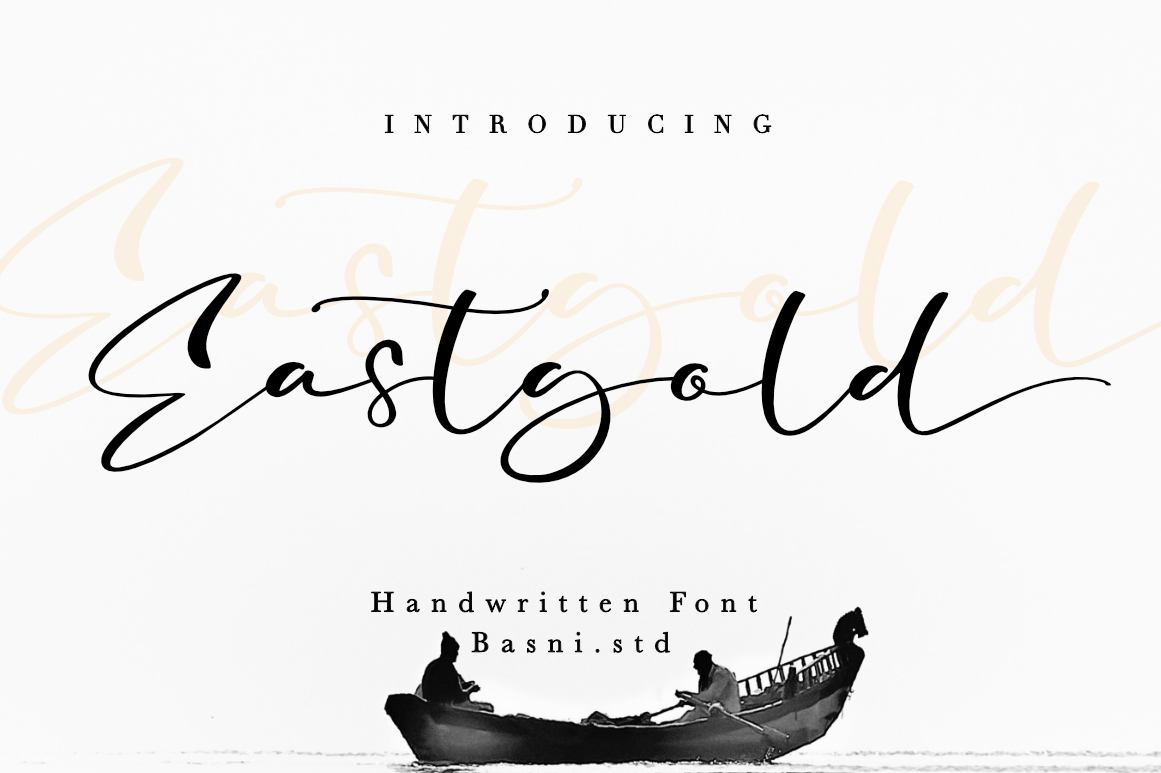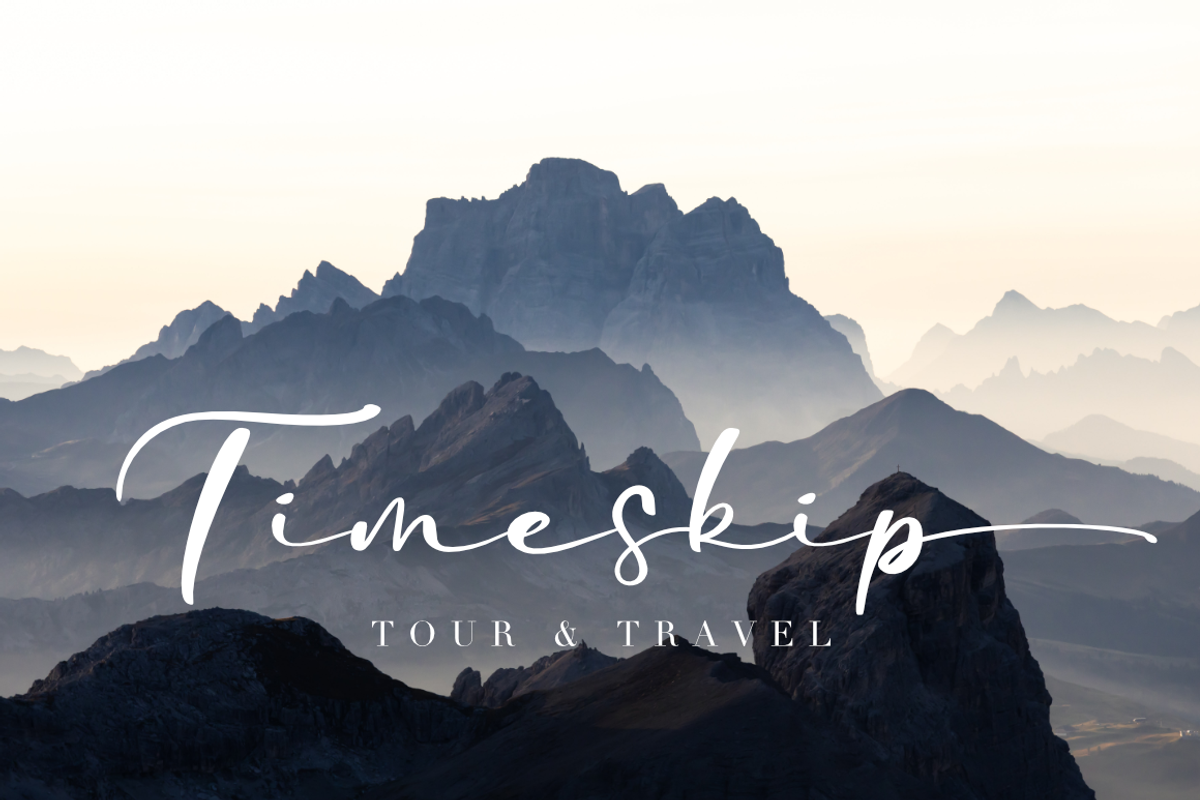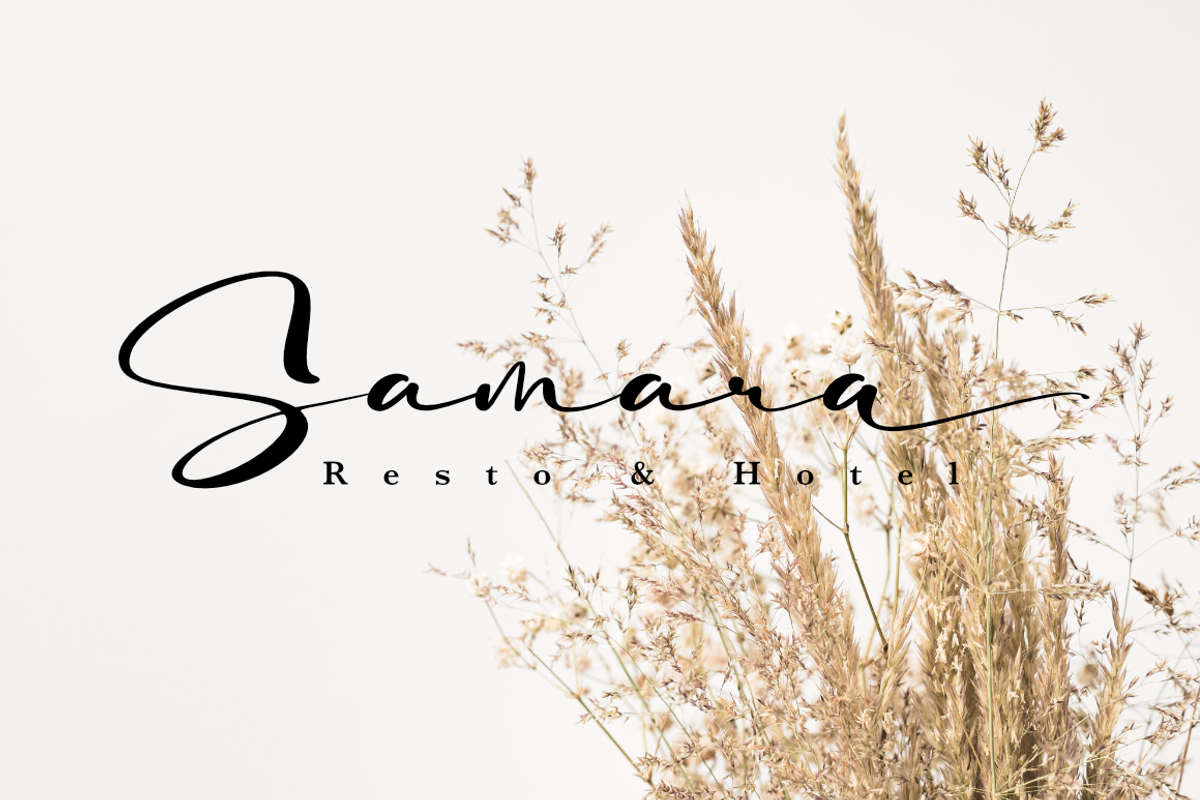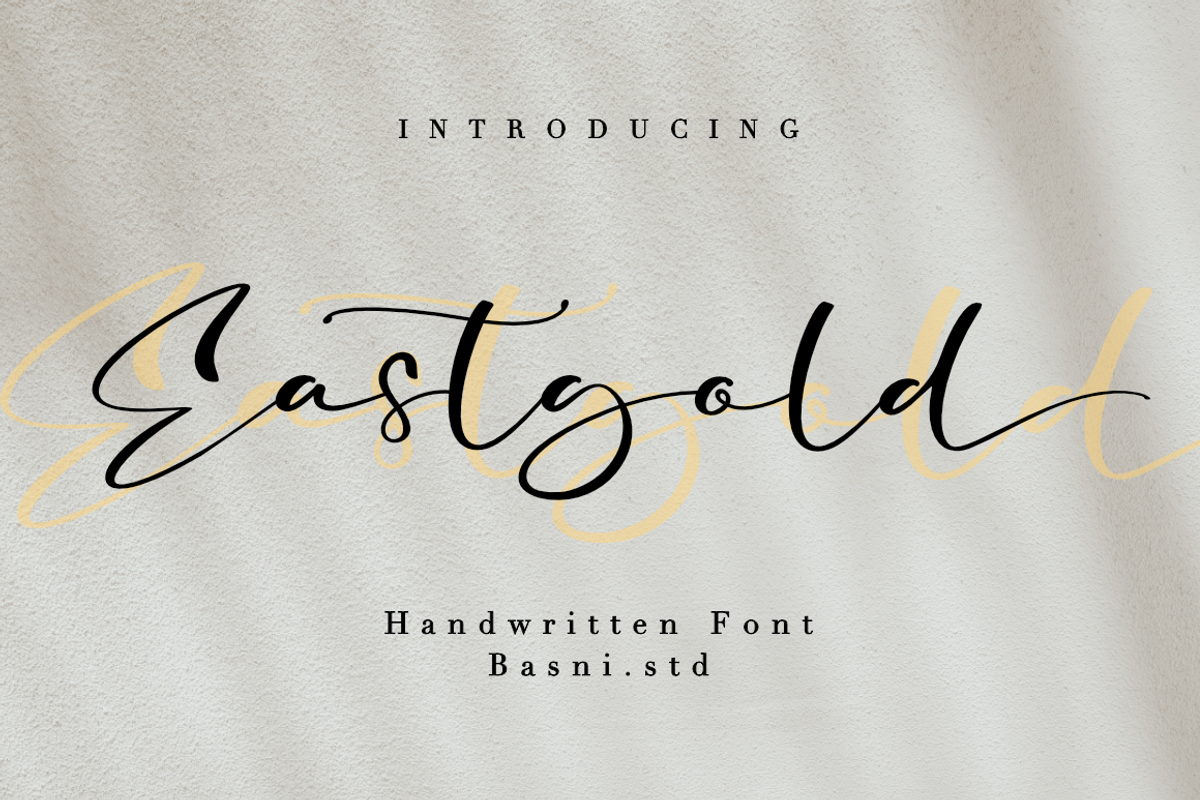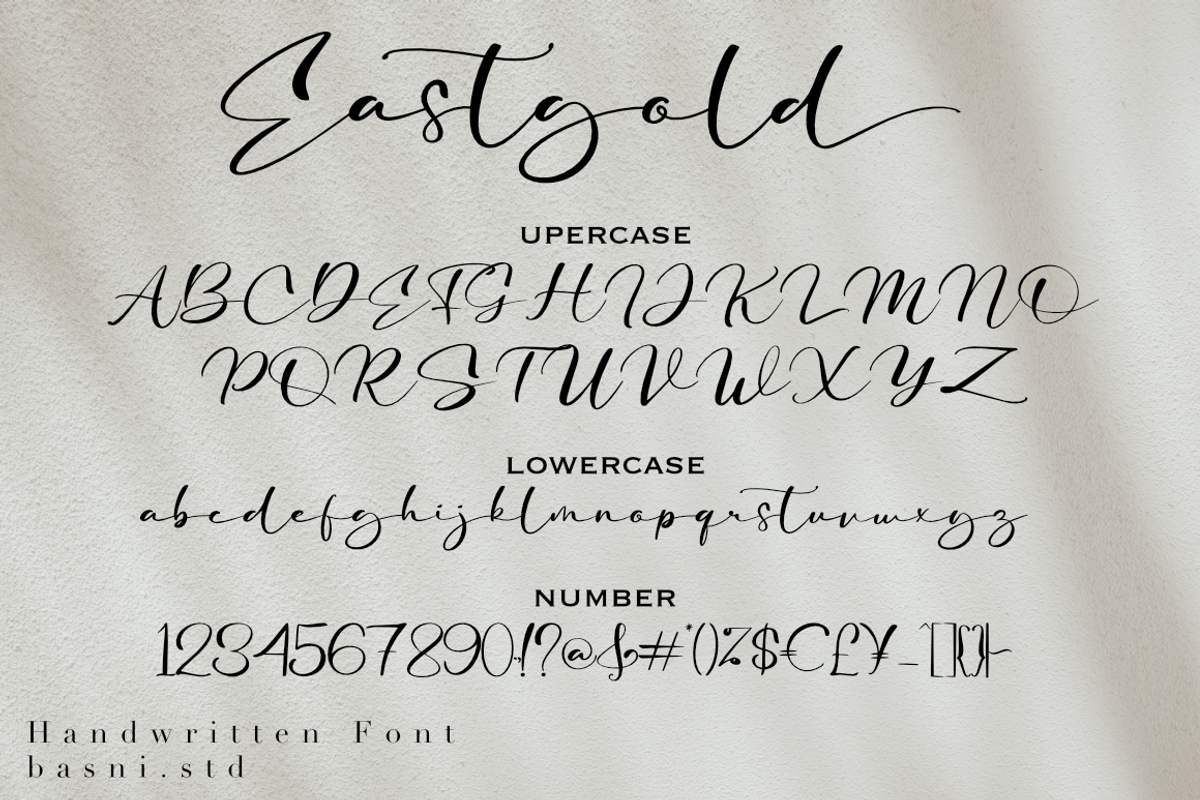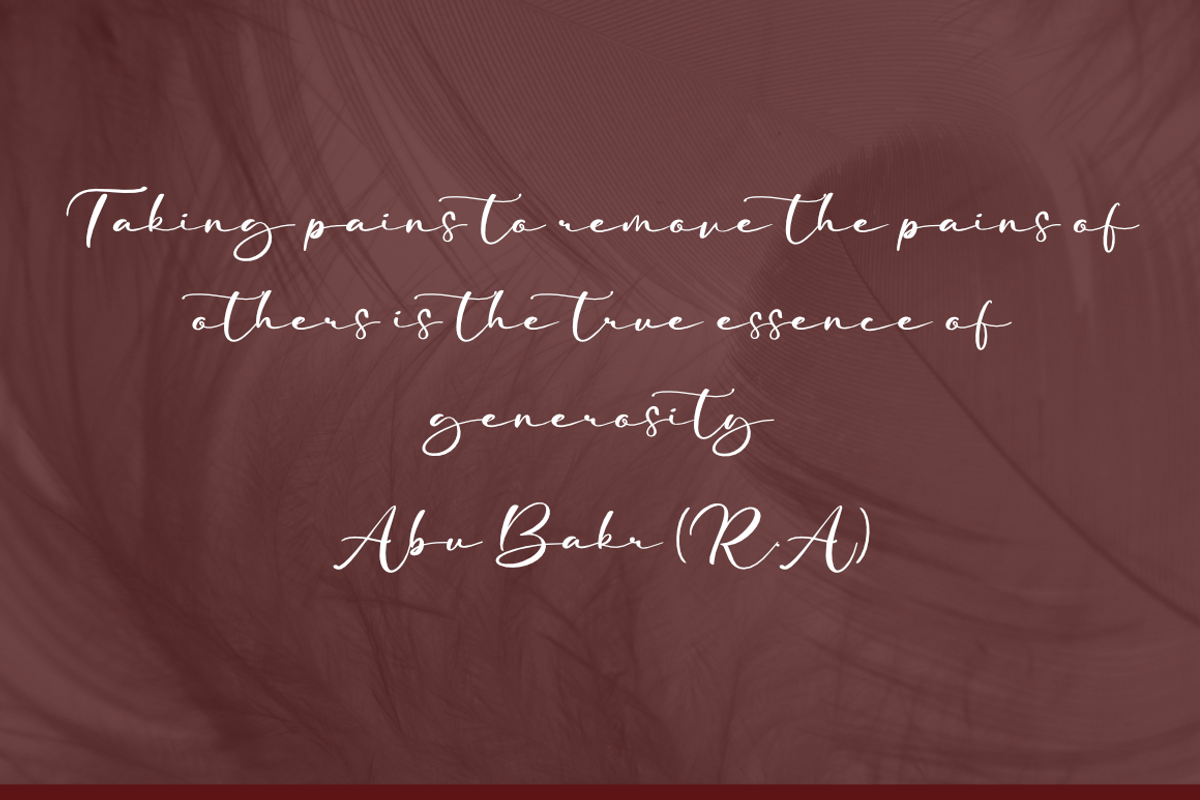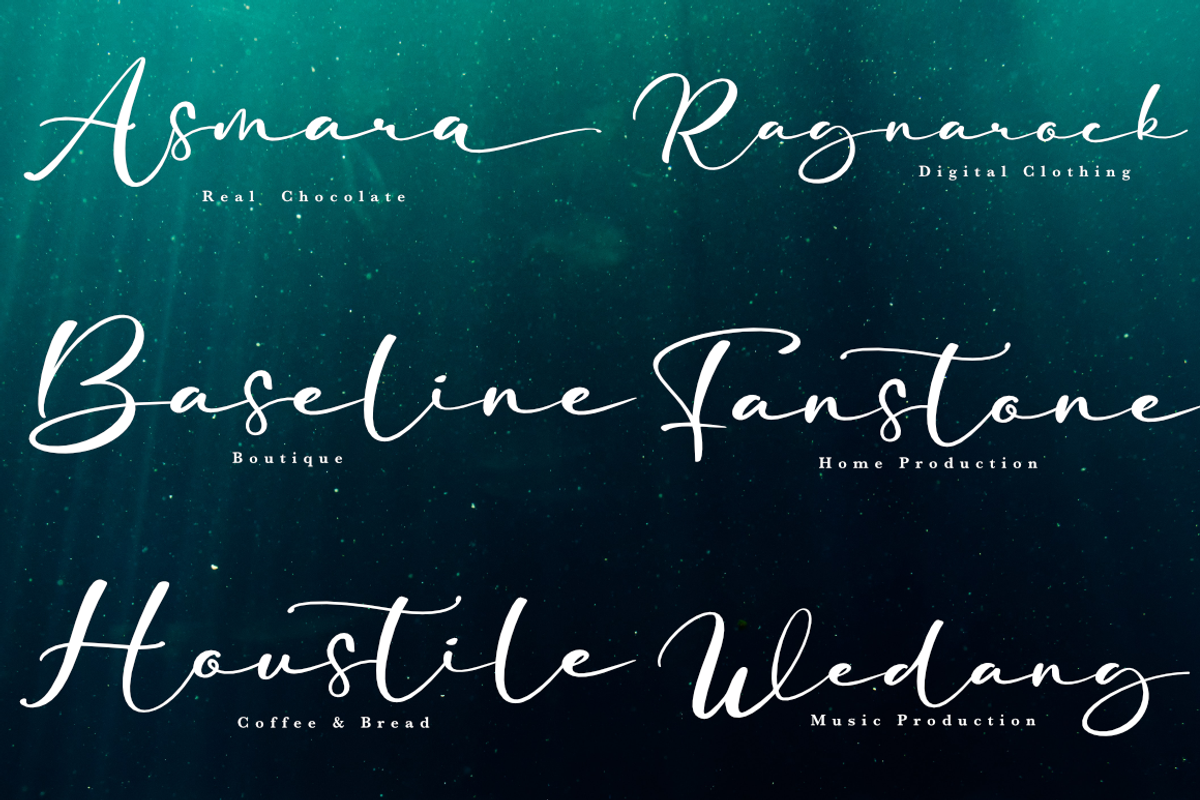
Eastgold a Handwritten Font
Introducing Eastgold, a Handwritten font,
Eastgold is perfect for branding, websites, design invitation, and editorial designs. Includes all upper and lower case letters, multilingual support, punctuation, binding and initial and final swash. everything can be easily accessed using software that supports OpenType.